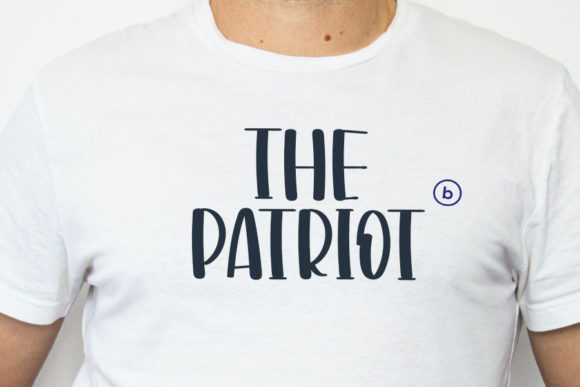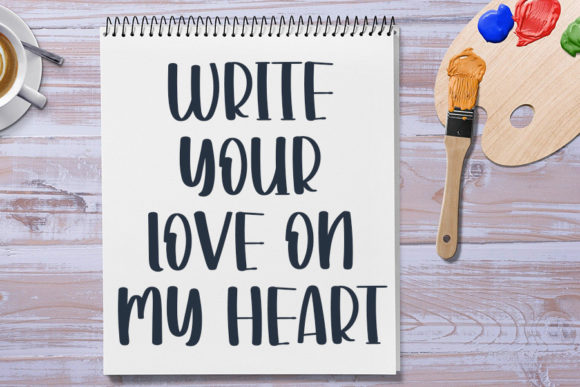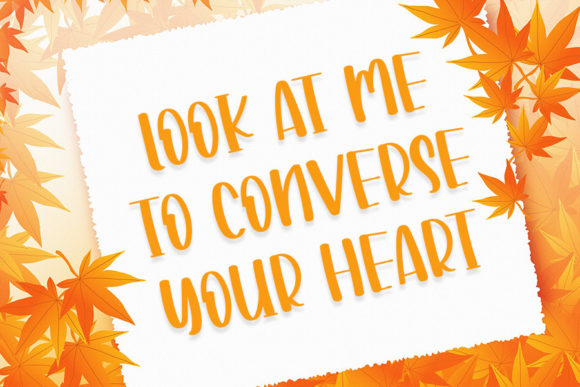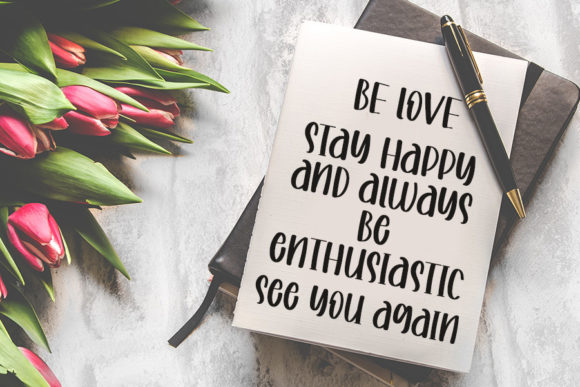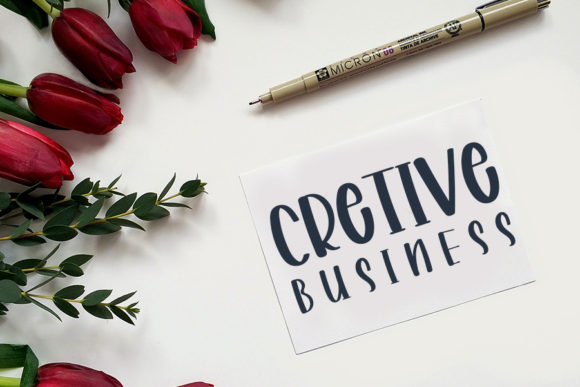
Introducing Beauty Sweeties Font: The Ultimate Display Font for Creative Projects
Are you a designer, crafty enthusiast, or simply someone who loves to add a touch of whimsy to their creative projects? Look no further than the Beauty Sweeties Font! This cool, whimsical, and jolly display font is perfect for a wide range of applications, from logos and wedding invitations to headings, t-shirts, and more.
What Makes Beauty Sweeties Font So Special?
Beauty Sweeties Font stands out from the crowd with its unique blend of playfulness and elegance. Its whimsical design makes it perfect for projects that require a touch of fun and personality, while its clean lines and classic feel ensure it remains sophisticated and versatile. Whether you’re working on a branding project, creating custom stationery, or designing a t-shirt, Beauty Sweeties Font is sure to make your work shine.
Endless Possibilities with Beauty Sweeties Font
One of the best things about Beauty Sweeties Font is its incredible versatility. Here are just a few ideas to get you started:
- Logos: Create a memorable brand identity with a custom logo that showcases your business’s personality.
- Wedding Invitations: Make your special day even more unforgettable with custom wedding invitations that feature Beauty Sweeties Font.
- Headings: Add a touch of whimsy to your blog posts, articles, or website with eye-catching headings that grab attention.
- T-Shirts: Design custom apparel that’s sure to turn heads with Beauty Sweeties Font.
- Stationery: Create custom stationery, such as greeting cards, thank-you cards, or gift tags, that showcase your personal style.
Why Choose Beauty Sweeties Font?
With so many fonts available, why choose Beauty Sweeties Font? Here are just a few reasons:
- Unique Design: Beauty Sweeties Font boasts a unique design that’s sure to set you apart from the crowd.
- Easy to Read: Despite its whimsical design, Beauty Sweeties Font is easy to read, making it perfect for body text and headings.
- High-Quality: Beauty Sweeties Font is a high-quality font that’s designed to deliver exceptional results.
- Versatile: As mentioned earlier, Beauty Sweeties Font is incredibly versatile, making it perfect for a wide range of projects.
Tips for Using Beauty Sweeties Font
To get the most out of Beauty Sweeties Font, here are a few tips to keep in mind:
- Experiment with Sizes: Don’t be afraid to experiment with different font sizes to create visual interest and hierarchy.
- Pair with Other Fonts: Beauty Sweeties Font pairs well with a variety of other fonts, so don’t be afraid to get creative with font combinations.
- Use for Headings: Beauty Sweeties Font is perfect for headings, so use it to create eye-catching titles and section headers.
- Add a Personal Touch: Use Beauty Sweeties Font to add a personal touch to your projects, whether it’s a custom illustration or a hand-drawn element.